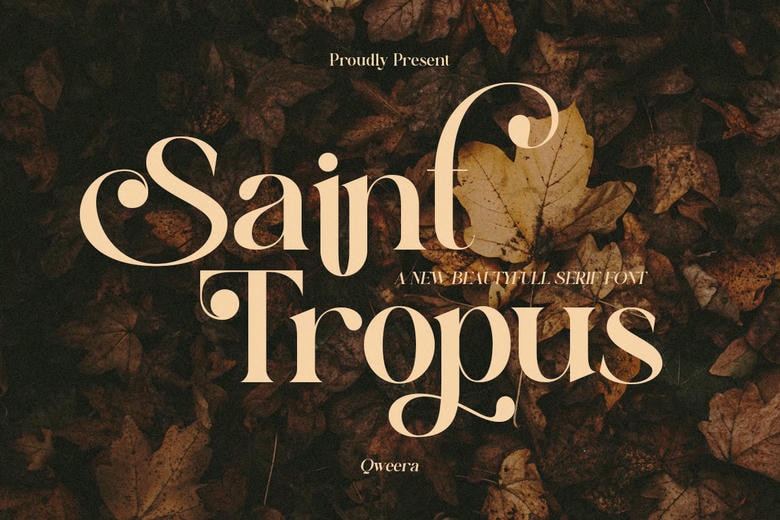
Saint Tropus Font
Saint Tropus Font is a luxury serif typeface that adds romantic elegance, vintage charm, and refined sophistication to modern design. It features graceful curves and stylish alternates.
This font works well for luxury branding, wedding invitations, beauty packaging, boutique logos, autumn campaigns, editorial layouts, seasonal products, premium stationery, and elegant marketing materials.
Saint Tropus combines classic serif style with modern readability. It is a great choice for designers who want a warm, stylish, and luxurious typeface for high-end visual identities.
Saint Tropus Serif Font